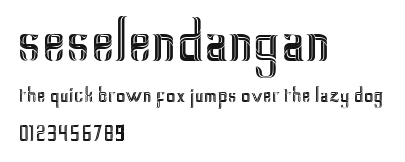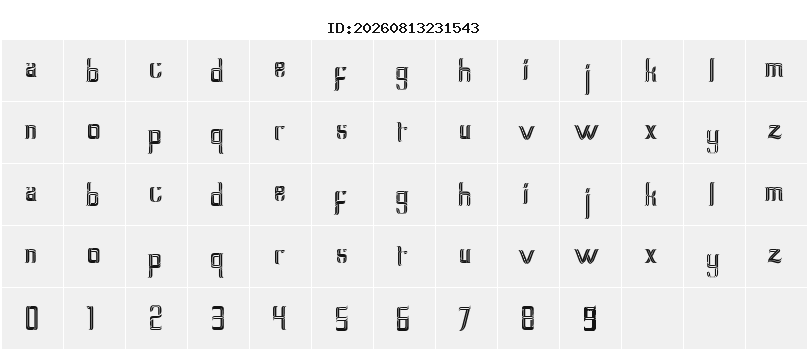
• Font Name: seselendangan
• Font ID: azmi&prisma: seselendangan: 2010
• Full Font Name: seselendangan
• Version: Version 1.000 2010 initial release
• PostScript Name: seselendangan
• Character Count: 92
• Copyright: Copyright (c) 2010 by azmi & prisma. All rights reserved.
• Designer: azmi and prisma
• Manufacturer: azmi & prisma
• Description: created in 2010 by azmi n prisma, that used for pasar seni itb 2010
About seselendangan.ttf
seselendangan.ttf is a modern, elegant sans-serif font designed for ultimate readability and visual harmony. Perfect for branding, headlines, web design, and print materials.